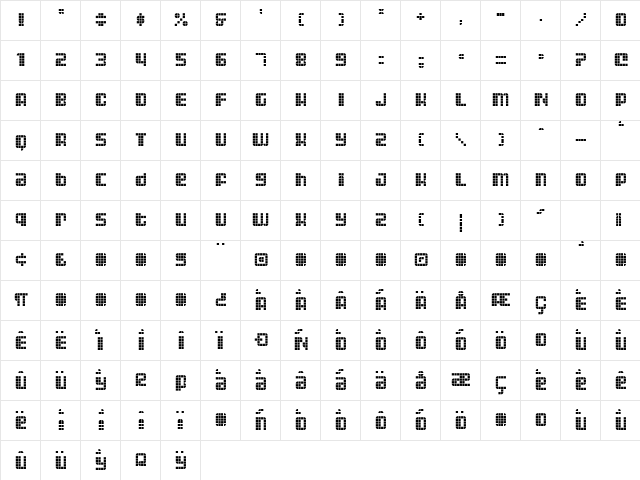
Astronaut III Regular
Design Context for Astronaut III Typeface
Astronaut III is a composed and adaptable typeface that performs quietly and consistently across a wide range of design contexts.